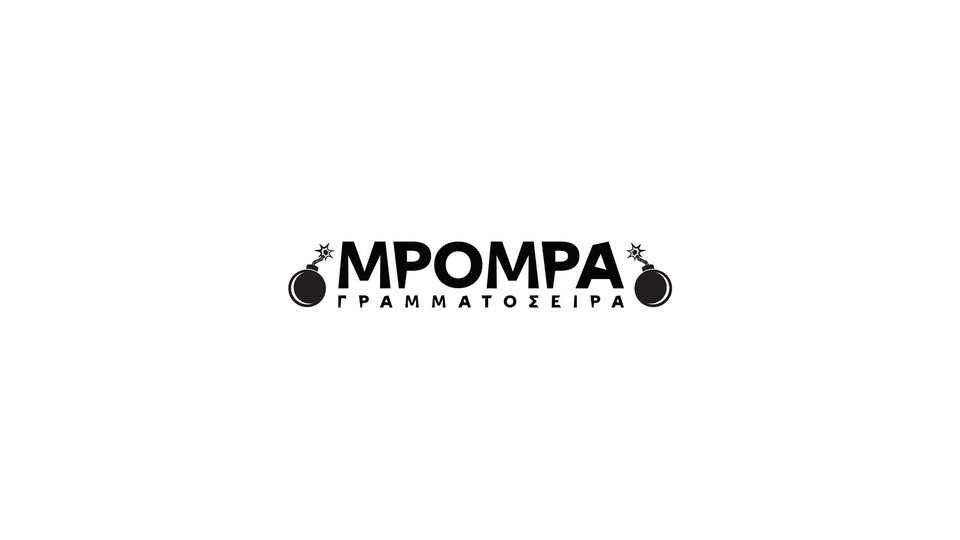
Download Mpompa font, a display typeface that combines the robustness of chunky letterforms with a joyful and whimsical spirit. Mpompa font is ideal for designs that require a balance of boldness and a cheerful atmosphere.